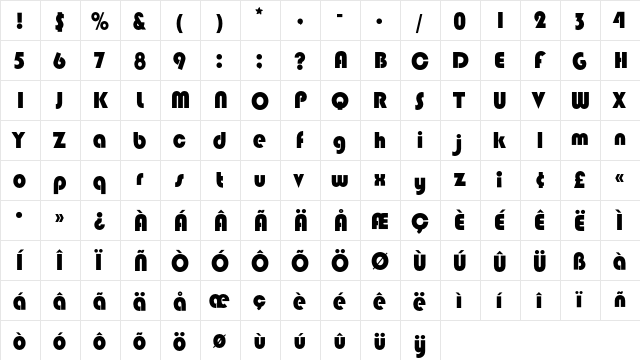
BlippoBlackEF Regular
Design Context for BlippoBlackEF Typeface
BlippoBlackEF is a composed and adaptable typeface that performs quietly and consistently across a wide range of design contexts.